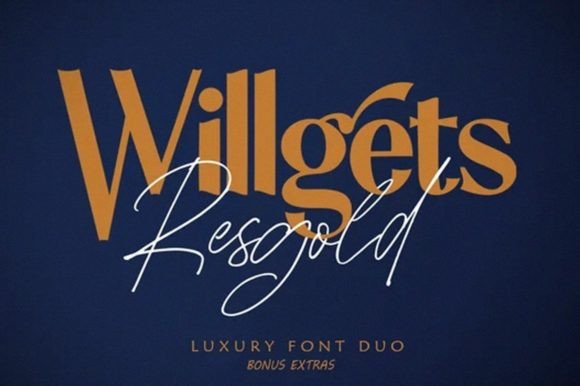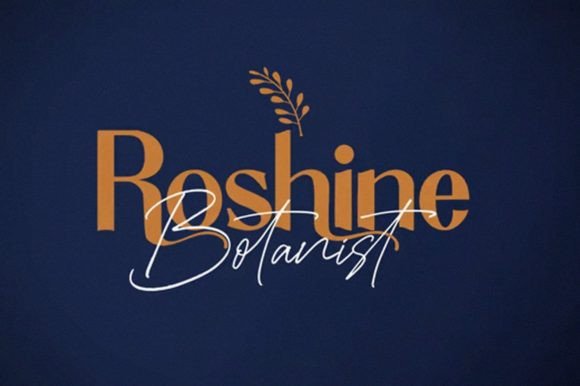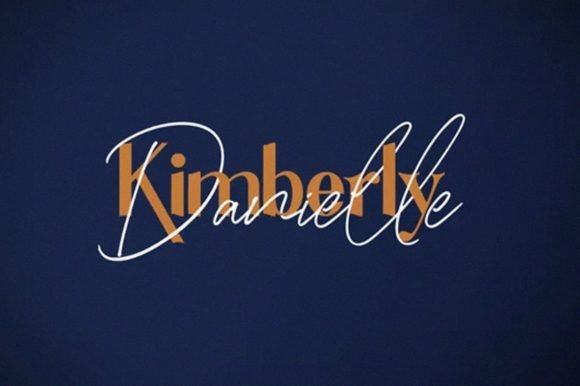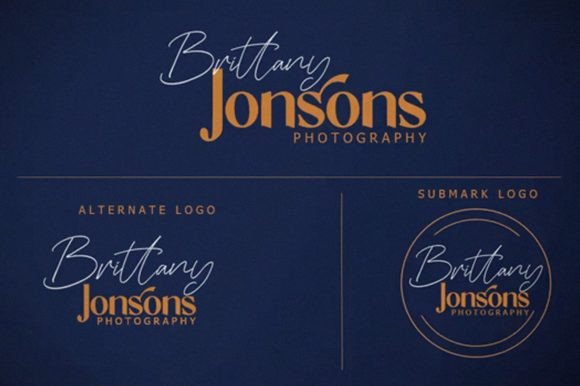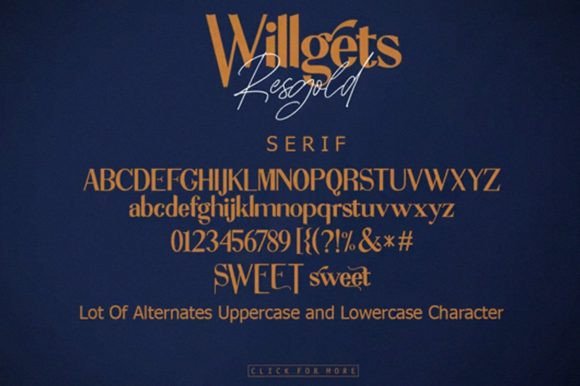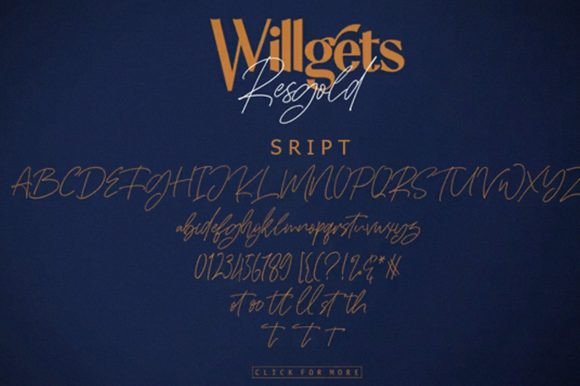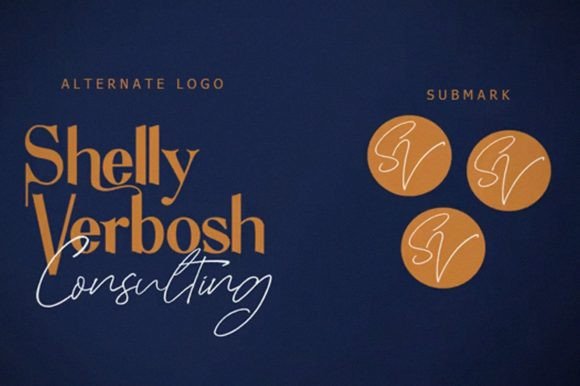
Resgold Willgets Font
About Resgold Willgets Font
“Resgold Willgets” is a luxurious font duo featuring an elegant script and a beautiful serif, both designed to be highly attractive.
The “Resgold Willgets Script” presents a clean and attractive appearance. Its elegance shines through with carefully crafted letterforms that exude sophistication. This script font is versatile and can be used for a variety of purposes where a refined and clean aesthetic is desired, such as branding, invitations, posters, or any project that calls for an elegant touch.
On the other hand, the “Resgold Willgets Serif” adds a stylish and modern serif option to the duo. Serif fonts often convey a sense of tradition and sophistication, and in this case, the “Resgold Willgets Serif” brings a contemporary twist to the classic serif style. Its stylish design makes it suitable for a range of design projects, including editorial design, logos, and other applications where a modern serif is preferred.
Together, the “Resgold Willgets” font duo offers a harmonious blend of elegance and modernity. Whether used individually or paired together, these fonts provide a luxurious and attractive typographic solution for various design needs.